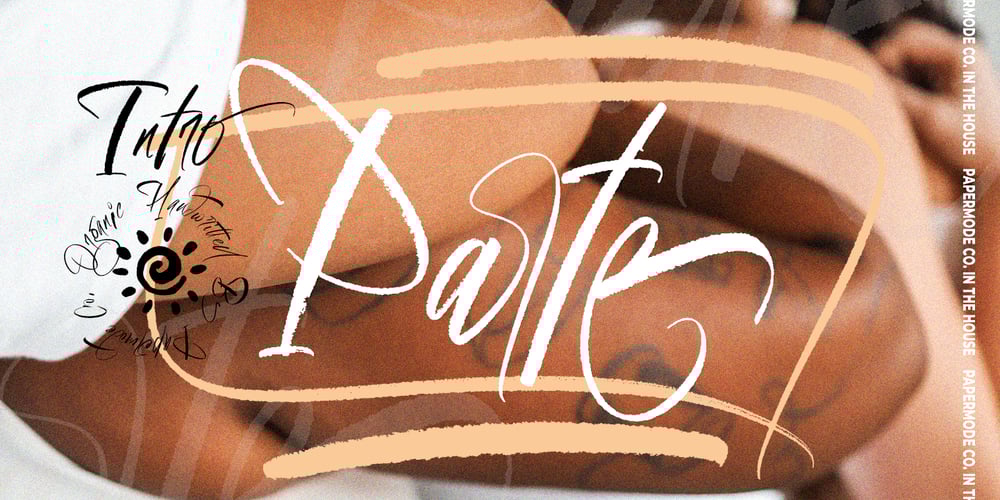
Parte Handwritten Font Family was designed by Mira Kartika Sari and published by Papermode Co. Parte Handwritten contains 1 styles and family package options. Parte is a organic handwritted font inspired by natural brush typography. Written in rapid motion using a slightly dry brush pen. This will give you a fresh and elegant design. Parte comes with uppercase and lowercase sets, numbers, alternative styles for some lowercase characters are also available which make your text and designs more attractive. Included multilingual support and special ligatures